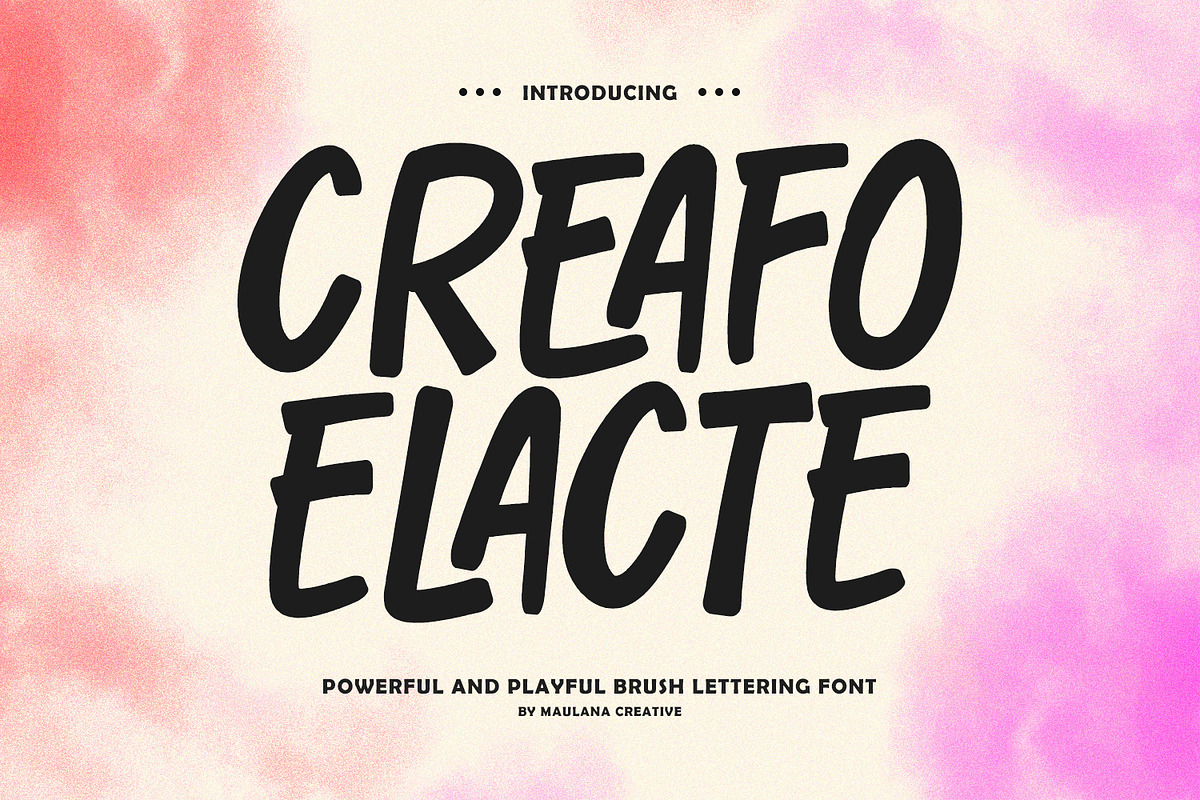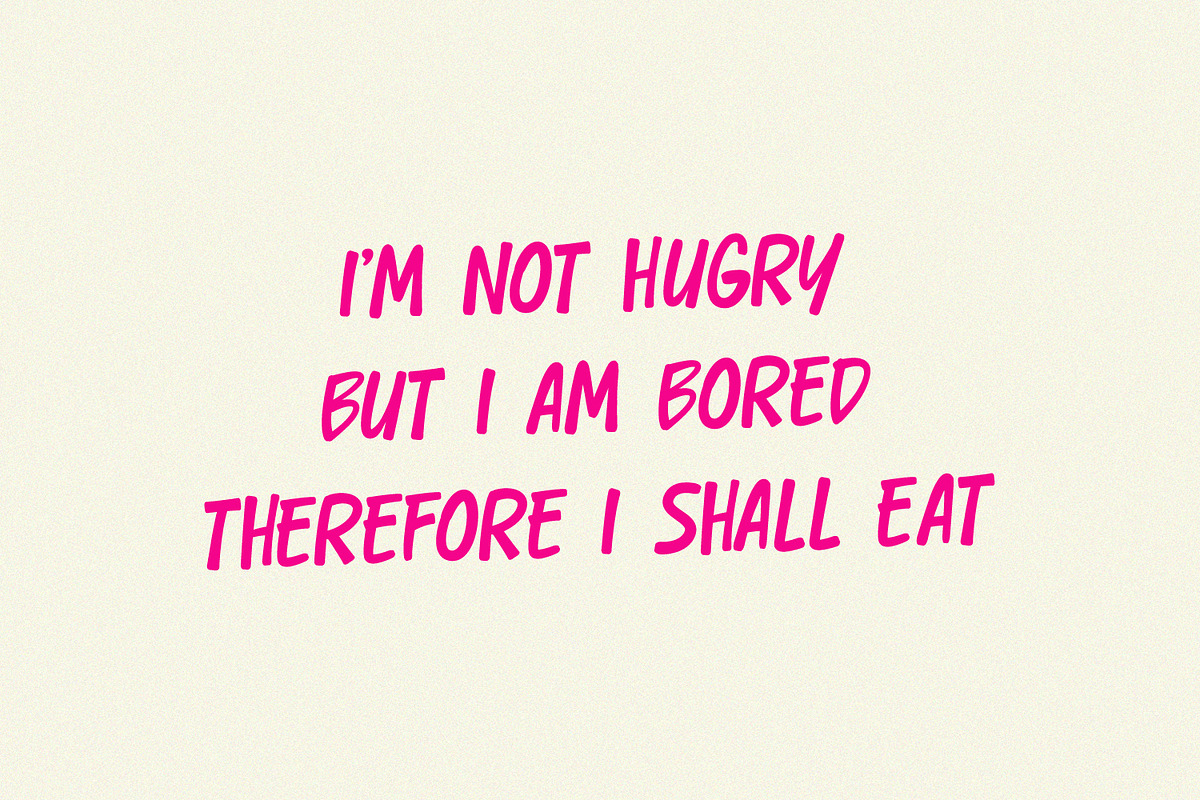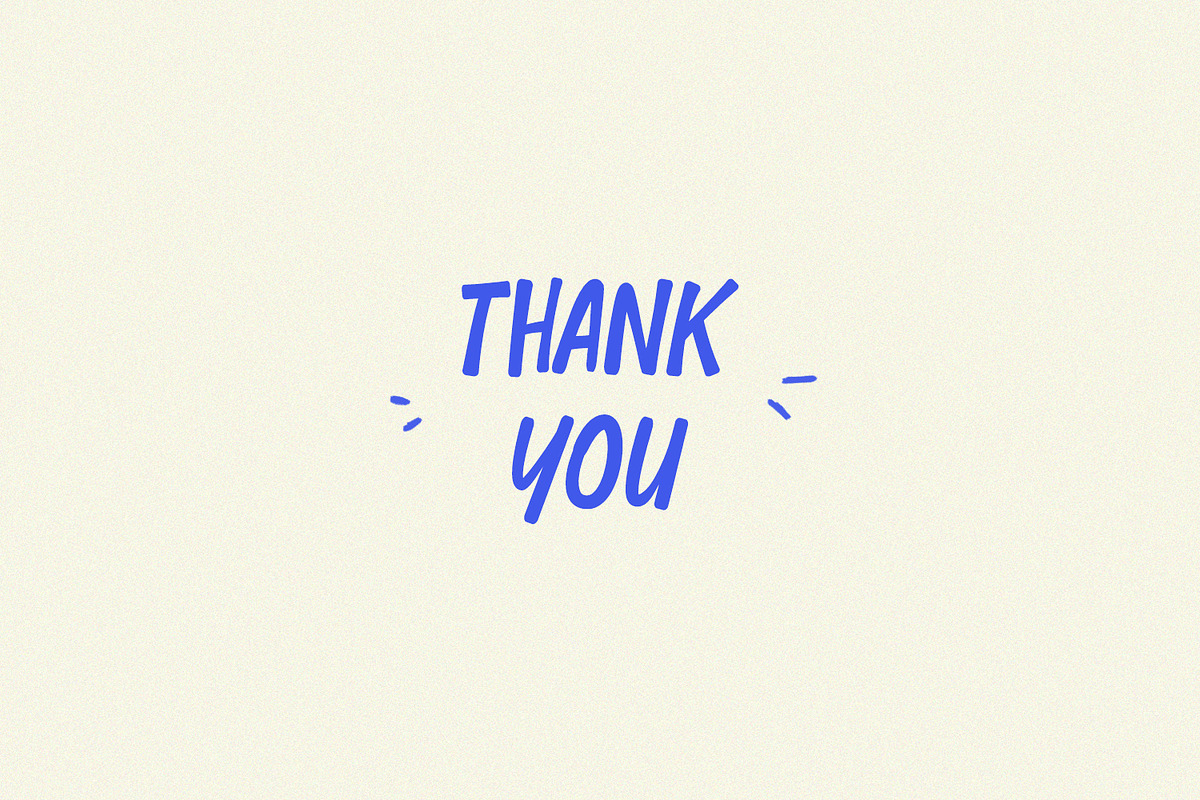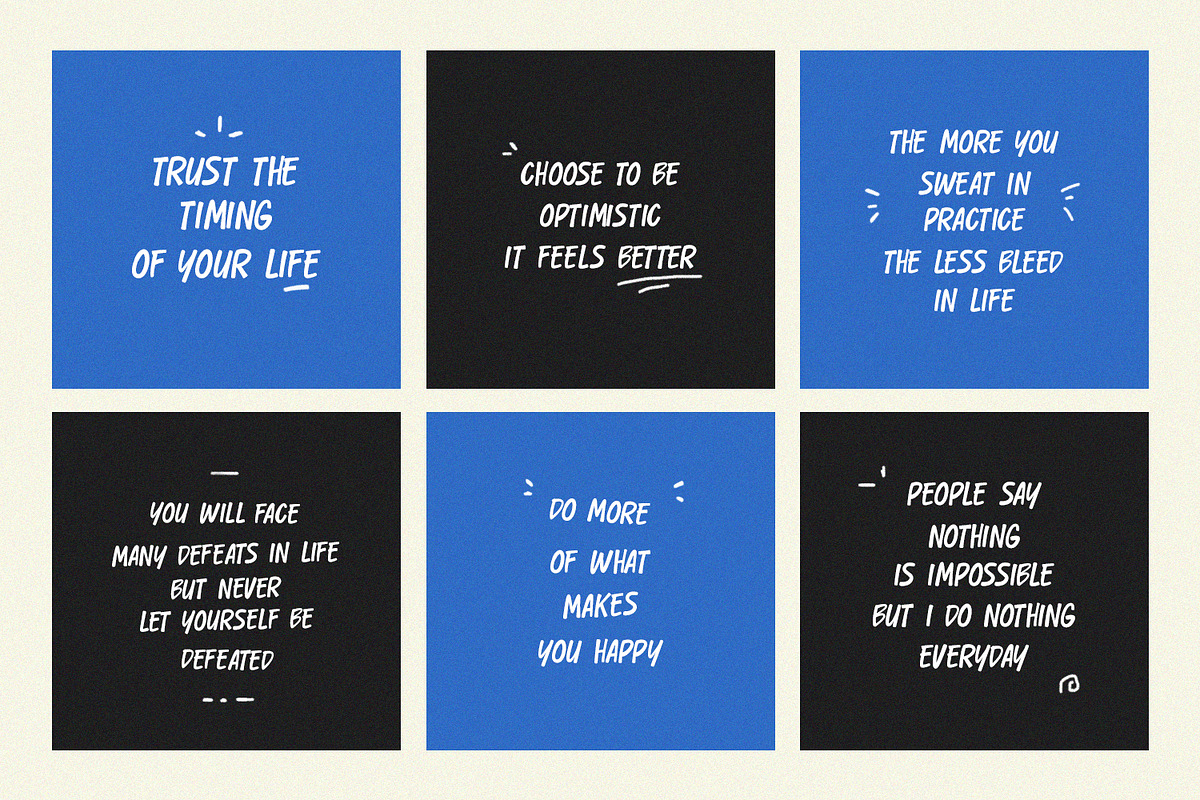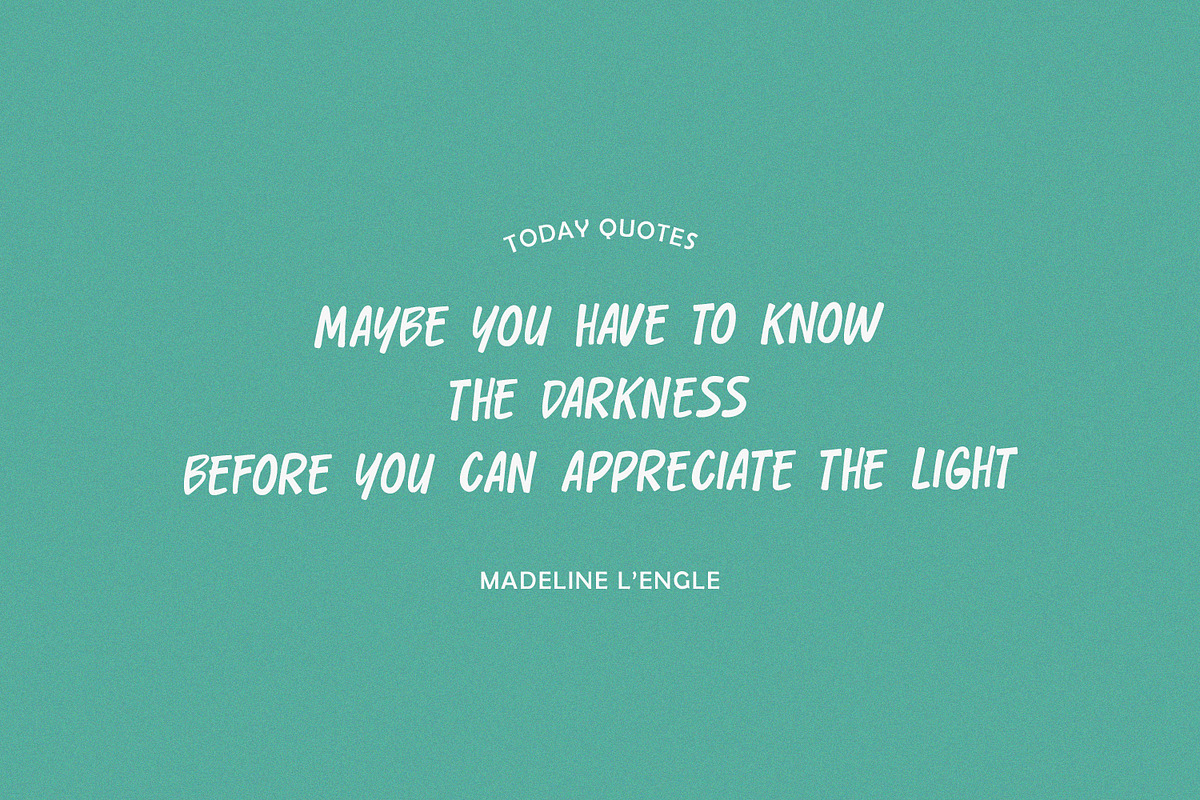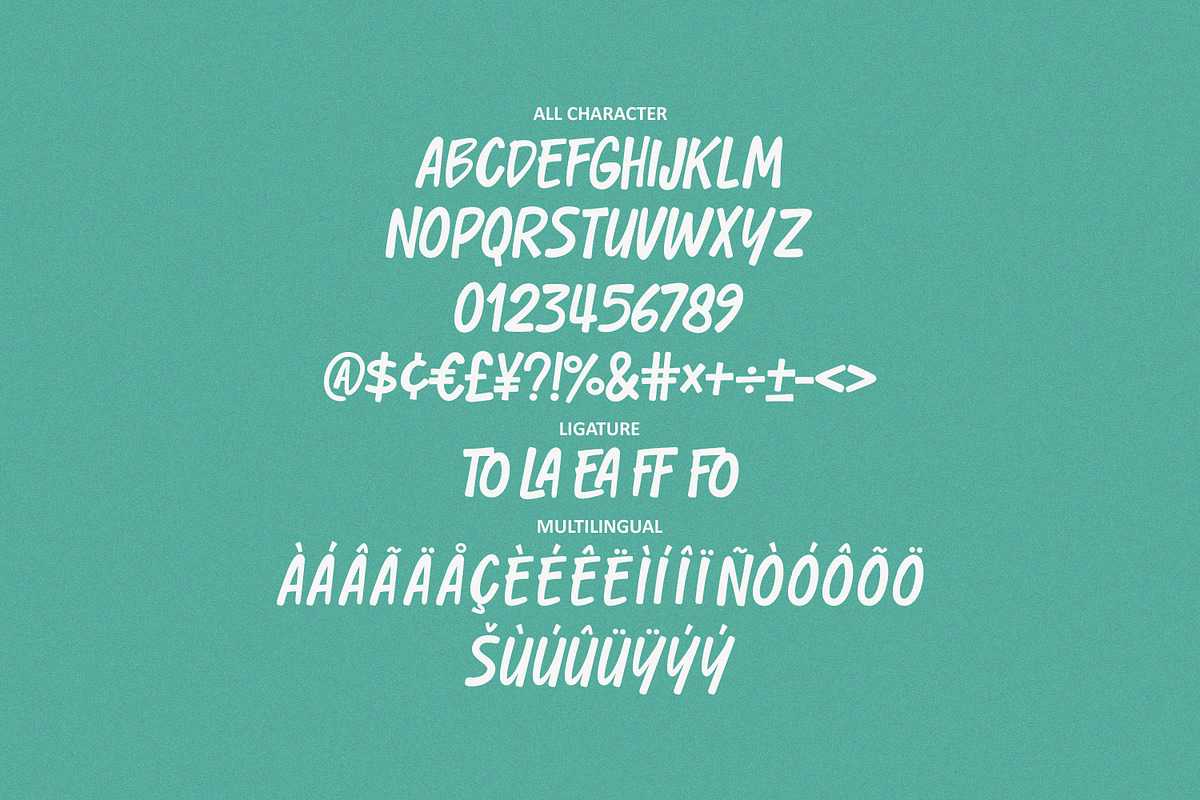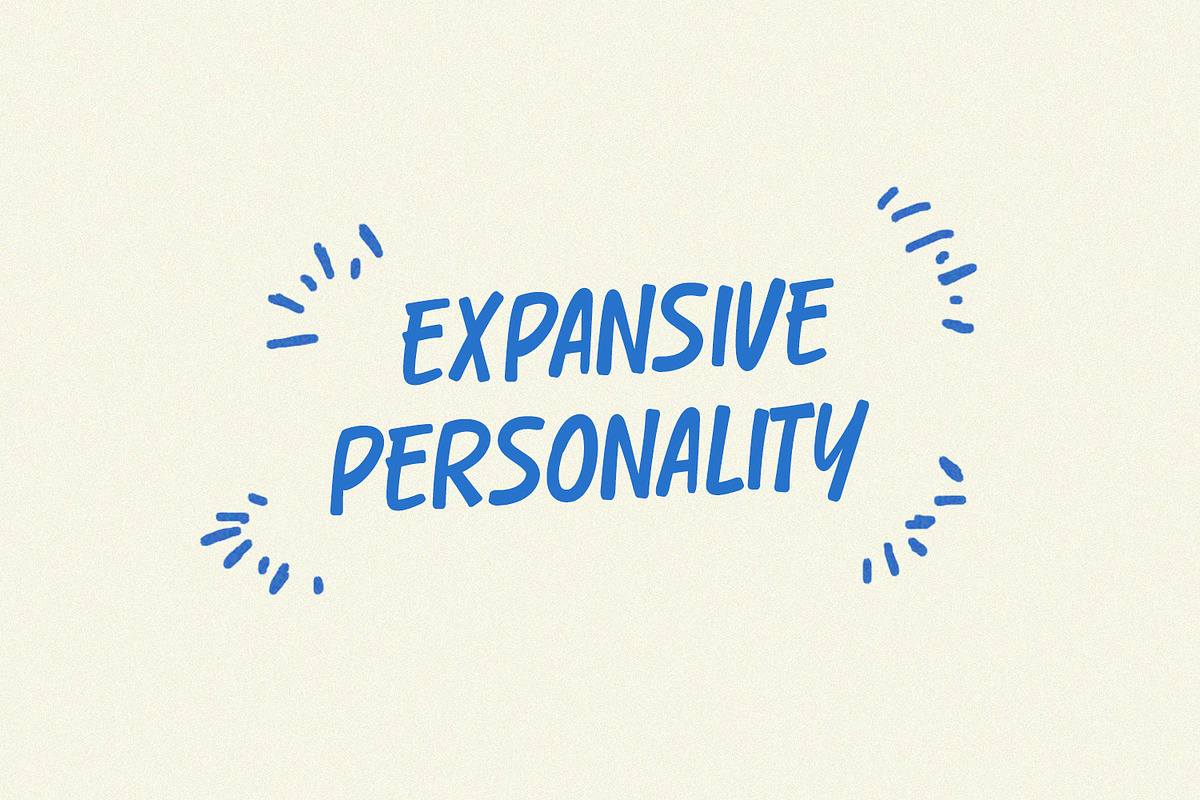
Creafo Elacte Powerful Playful Brush
Unleash your creative energy with Creafo Elacte, a dynamic and expressive brush lettering font designed to bring a bold and joyful spirit to any project. Crafted with a confident, hand drawn feel, this font strikes the perfect balance between powerful presence and playful spontaneity. Whether you are designing vibrant crafting captivating social media graphics, creating stand out branding, or adding a touch to invitations, Creafo Elacte is your go to tool. Its thick strokes and slight slant give it a lively, energetic movement that instantly grabs attention. Key Features: - Powerful and Playful: A unique style that is both assertive and fun. - Authentic Brush Texture: Gives your designs an organic, hand crafted look. - Extensive Character Set: Includes all uppercase letters, numbers, punctuation, and essential symbols. - Multilingual Support: Reach a global audience with support for numerous Latin based languages. - Handy Ligatures: Smooth, natural connections for a more cohesive flow. - Perfect for: Product, Graphic Design, Branding, Logo, Social Media Quotes, Music Design, Kids Products, and much more! Font Include: - OTF and TTF - Web Font - Numbers and punctuation - Multilingual Support - Ligatures - Easy to use in various design software